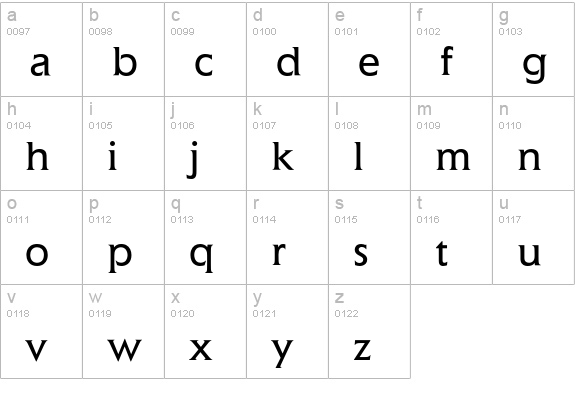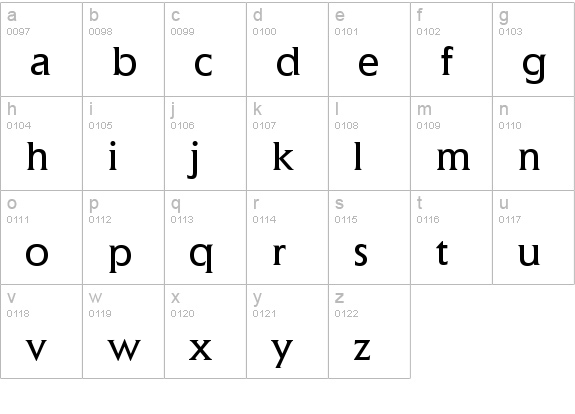
Elan* Book is a comfortable, highly readable variant in the Elan* typeface family \xE2\x80\x94 well suited to long-form body text, articles, and editorial content.
Elan Book font is a modern and elegant typeface that exudes sophistication and style. Its clean lines and balanced proportions make it perfect for a wide range of design projects, from branding to editorial layouts. The Elan Book font offers a unique blend of versatility and readability, making it an excellent choice for both print and digital applications. What's even better is that Elan Book font is available for free download at FontsMarket.com. This means you can easily access this high-quality font without breaking the bank. Whether you're a seasoned designer looking to refresh your font collection or a beginner exploring typography for the first time, Elan Book font is a fantastic addition to your toolkit. Don't miss out on the opportunity to enhance your designs with this stylish and versatile typeface – download Elan Book font for free today at FontsMarket.com!